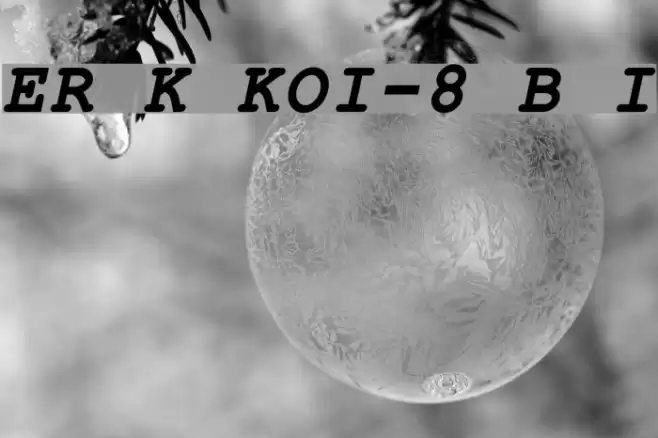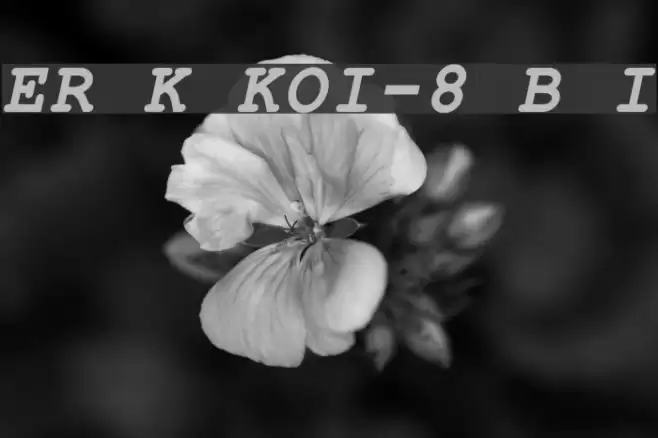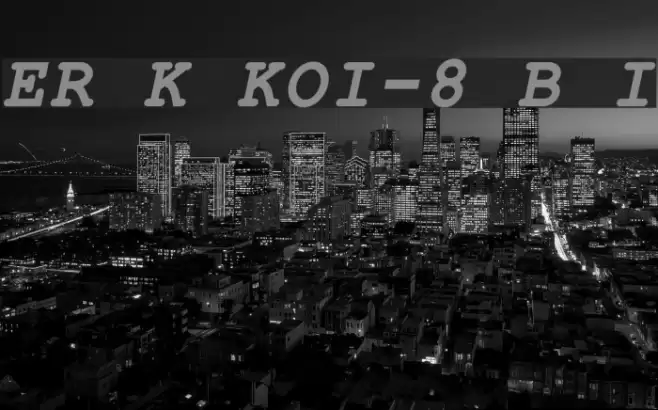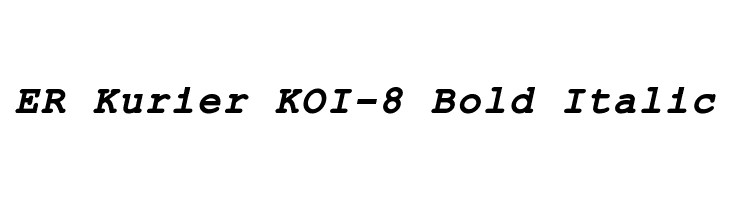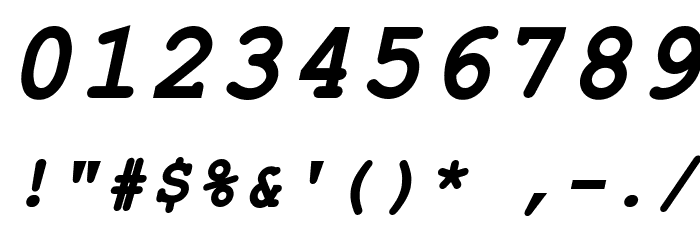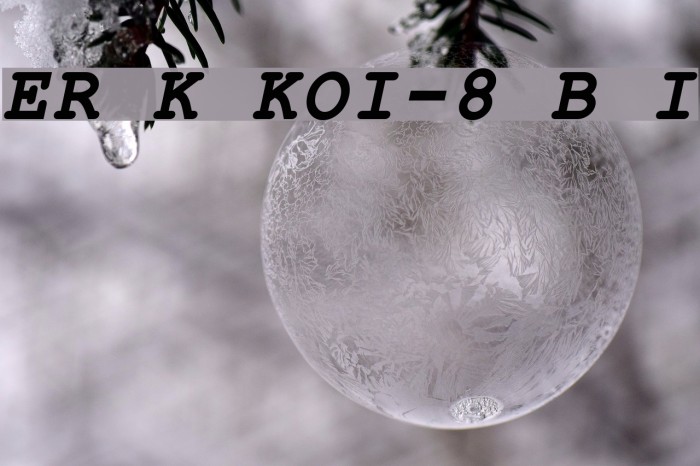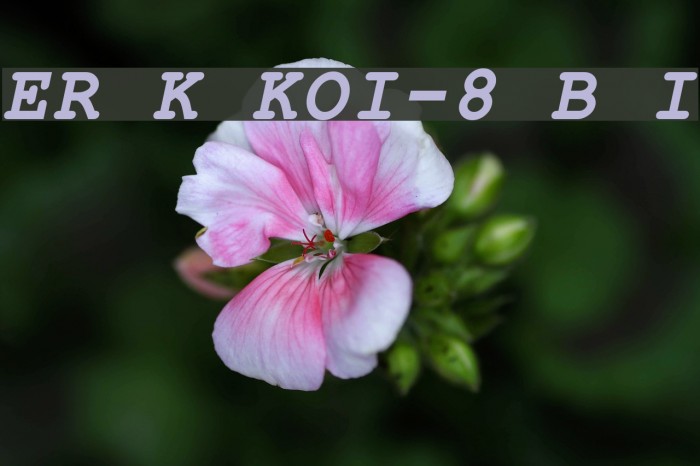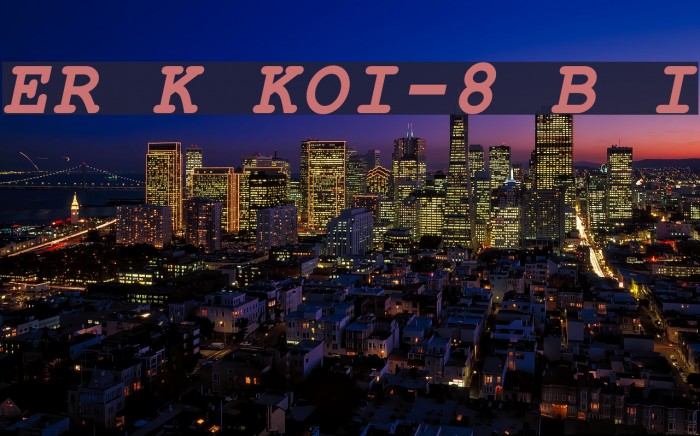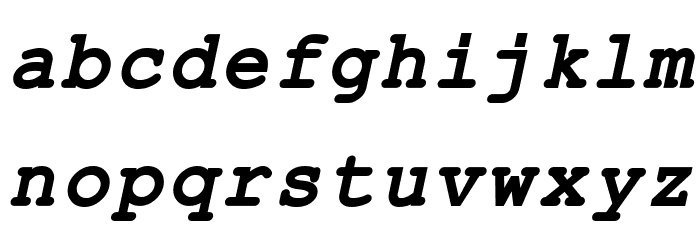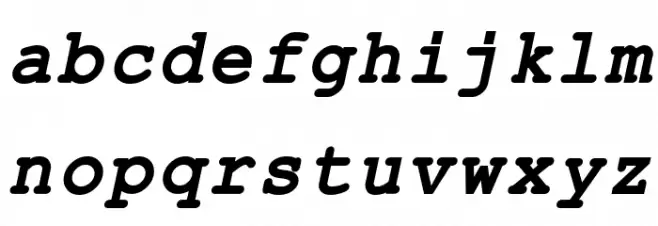
ER Kurier KOI-8 Bold Italic Font
ER Kurier KOI-8 Bold Italic Description
This font features a bold and italicized style, characterized by its strong and pronounced strokes. The letters have a slight slant, adding a dynamic and energetic feel. The bold weight ensures that the characters stand out, making it suitable for attention-grabbing headlines or titles. The font maintains a consistent thickness throughout, with rounded edges that soften the overall appearance. Its design is both modern and classic, offering versatility in various applications. The numbers and special characters are designed to match the bold and italicized style, ensuring a cohesive look across all text elements.
A bold, italicized font with strong, rounded strokes and a modern yet classic appeal from Typewriter fonts.